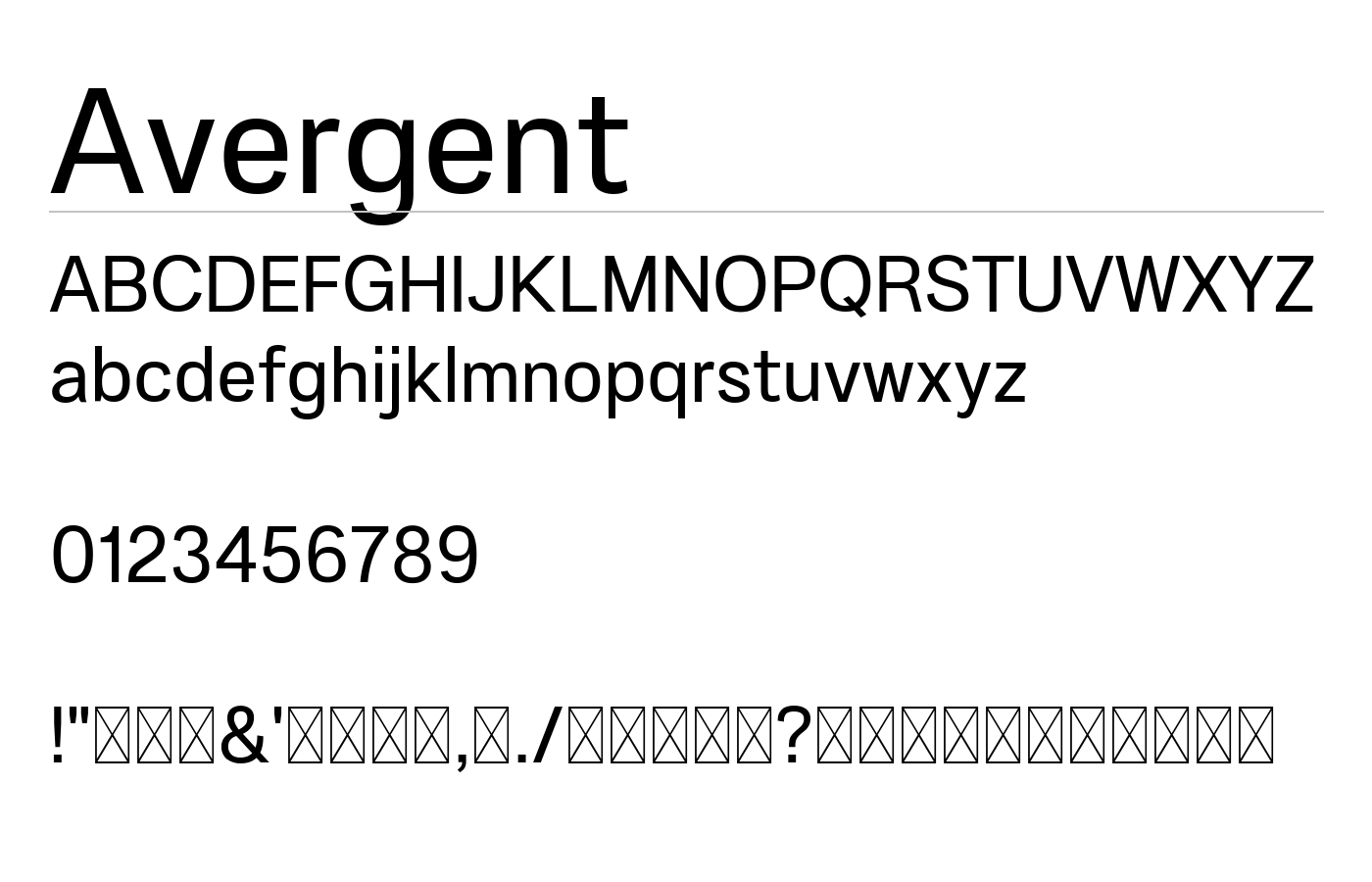
Avergent is a clean and modern sans-serif font characterized by its balanced proportions, medium weight, and clear legibility. With simple, geometric letterforms and a slightly tall x-height, this font works well for both headlines and body text, making it ideal for digital interfaces, corporate branding, and editorial design. Its straightforward style conveys professionalism and clarity, perfect for projects seeking a contemporary yet approachable tone.
Avergent Font
About Avergent Font
| Font family | Avergent Font |
| Designer | Mukhlis Muhammad |